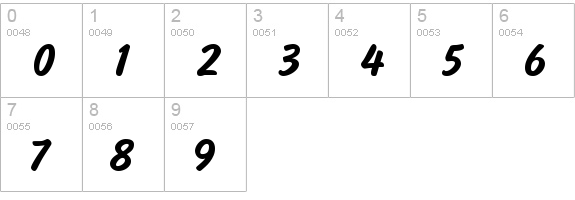
Salsbury font exudes elegance and sophistication with its clean lines and modern aesthetic. This versatile typeface is perfect for a wide range of design projects, from branding to editorial design. Its sleek and stylish appearance makes it a popular choice for designers looking to add a touch of class to their work. The best part? Salsbury font is available for free download at FontsMarket.com! Now you can elevate your designs without breaking the bank. Don't miss out on this opportunity to add a touch of refinement to your projects with the stunning Salsbury font. Download it today and start creating beautiful designs that stand out from the crowd.